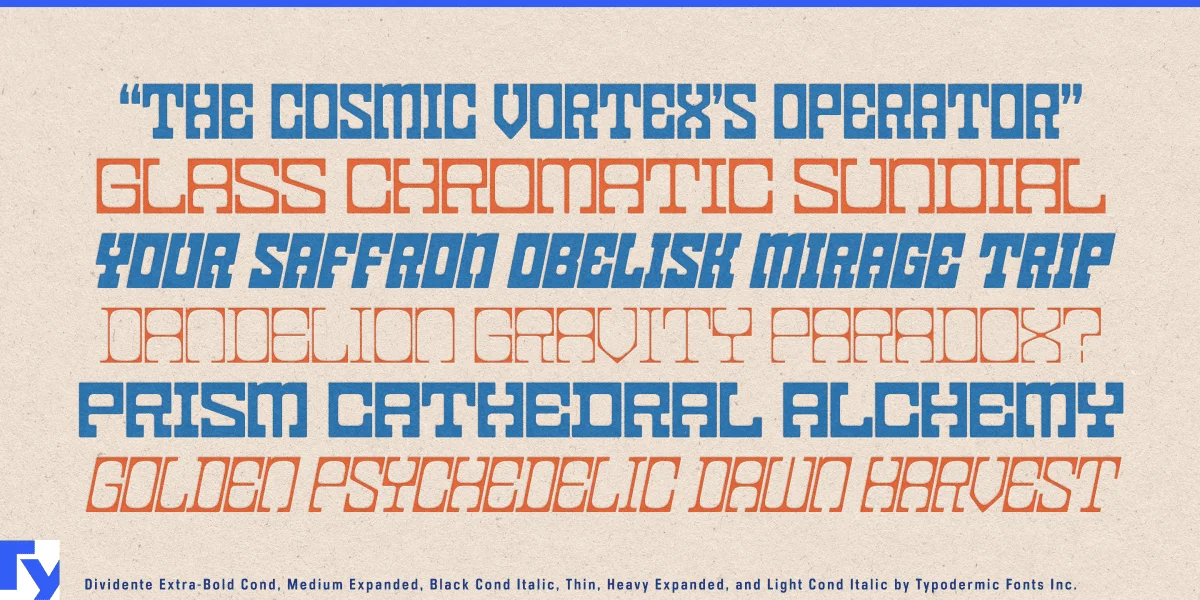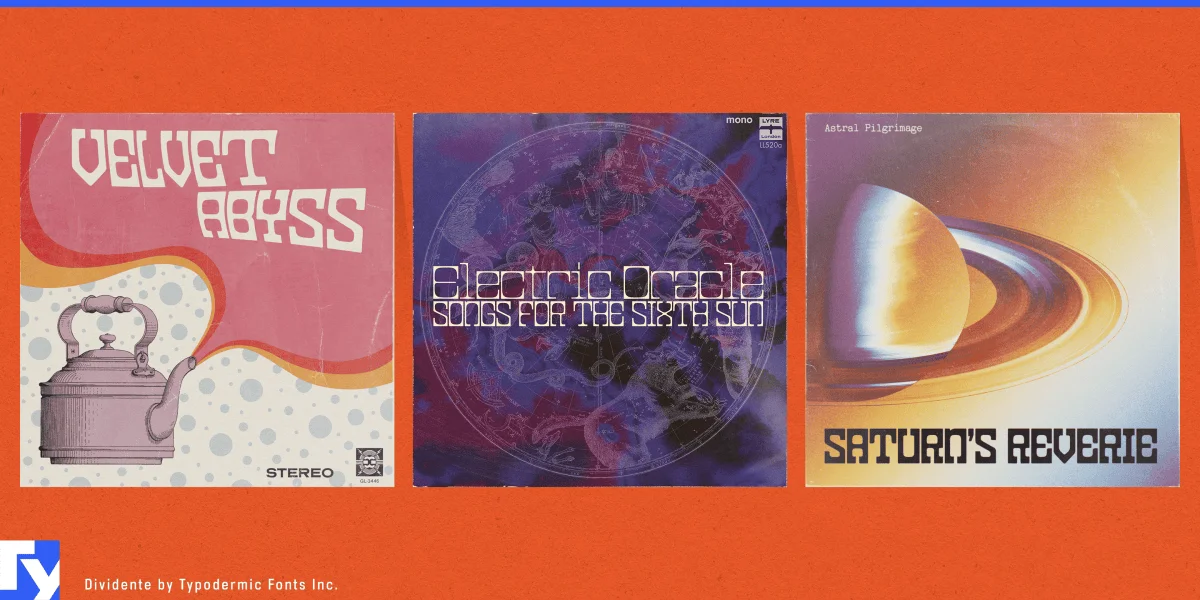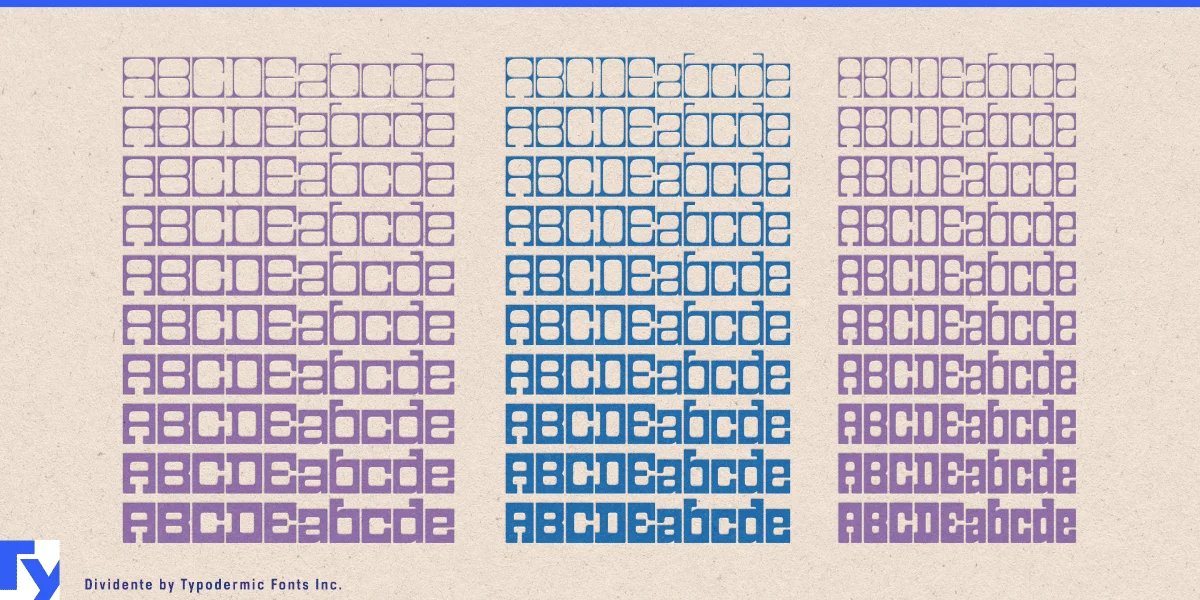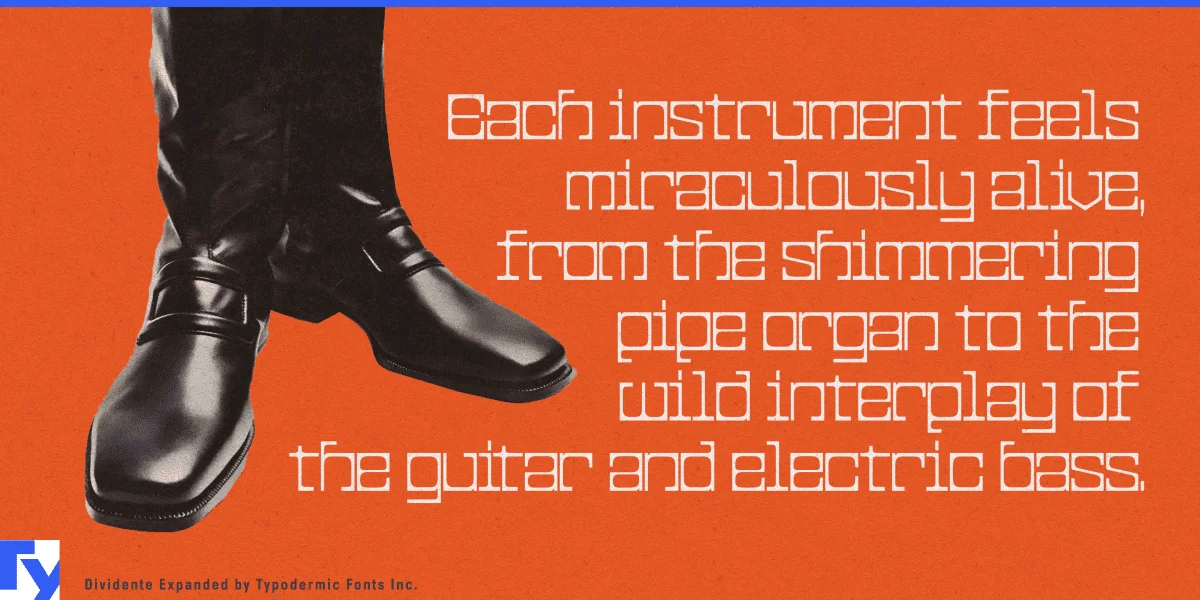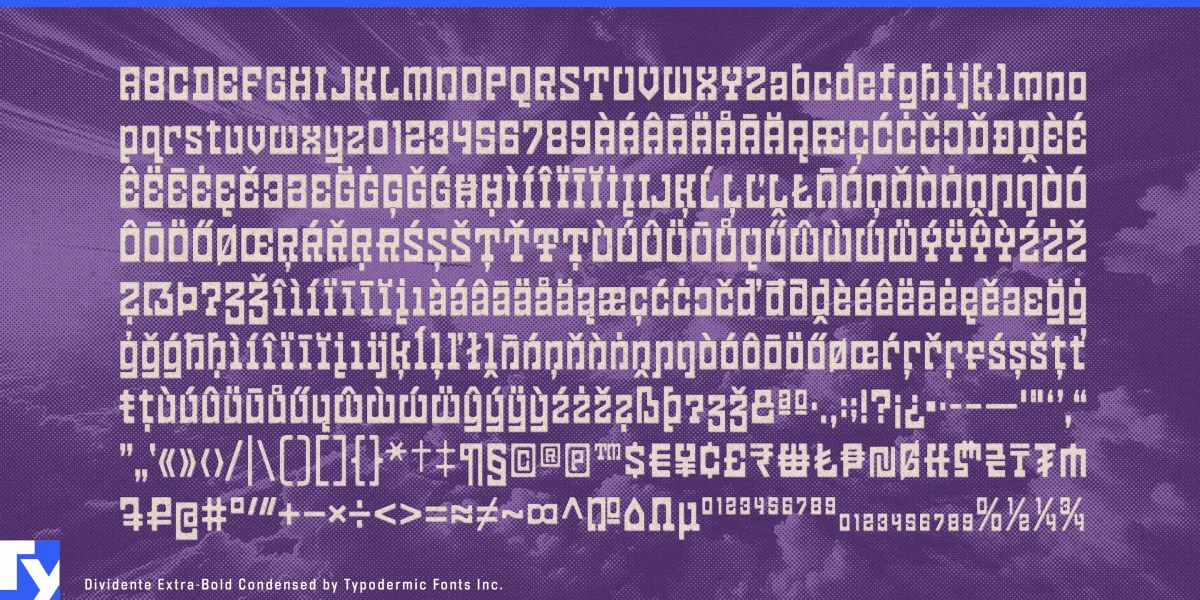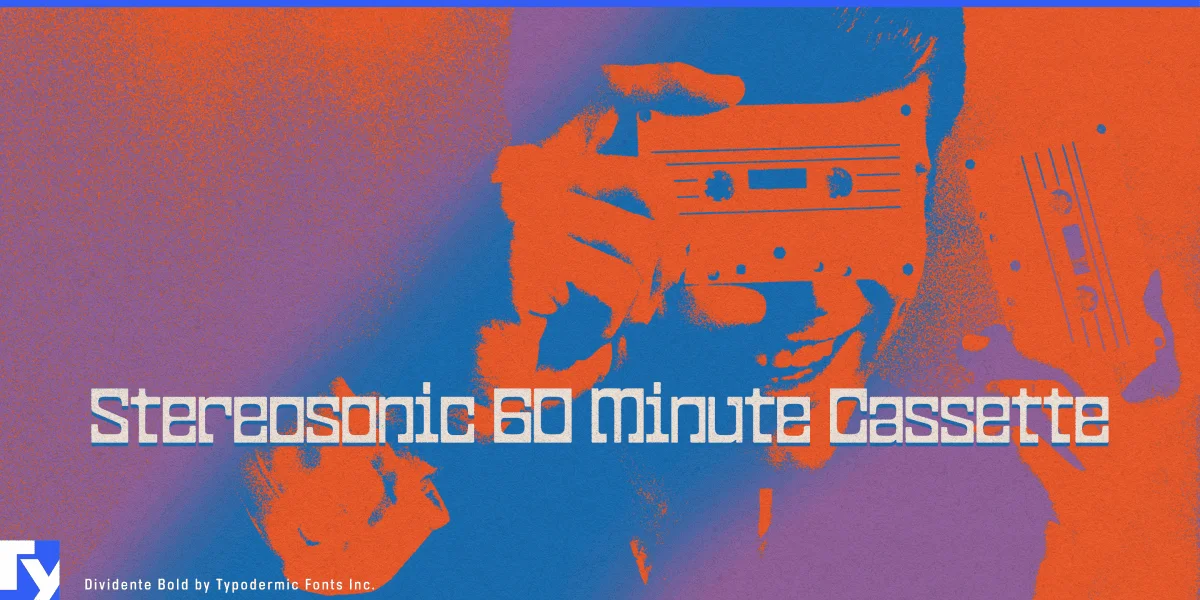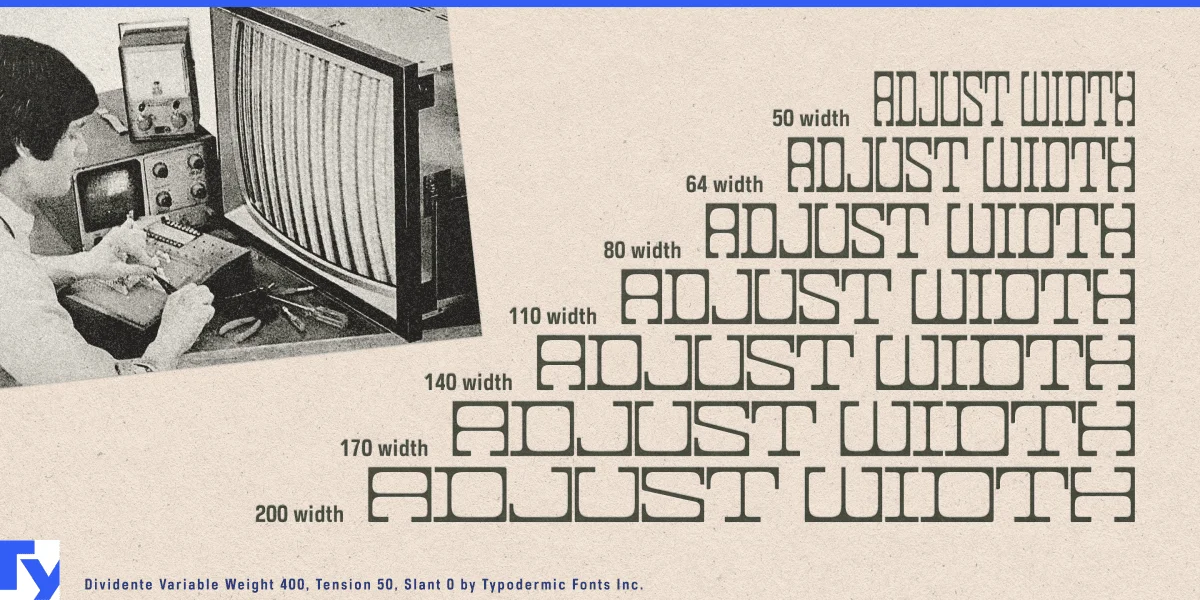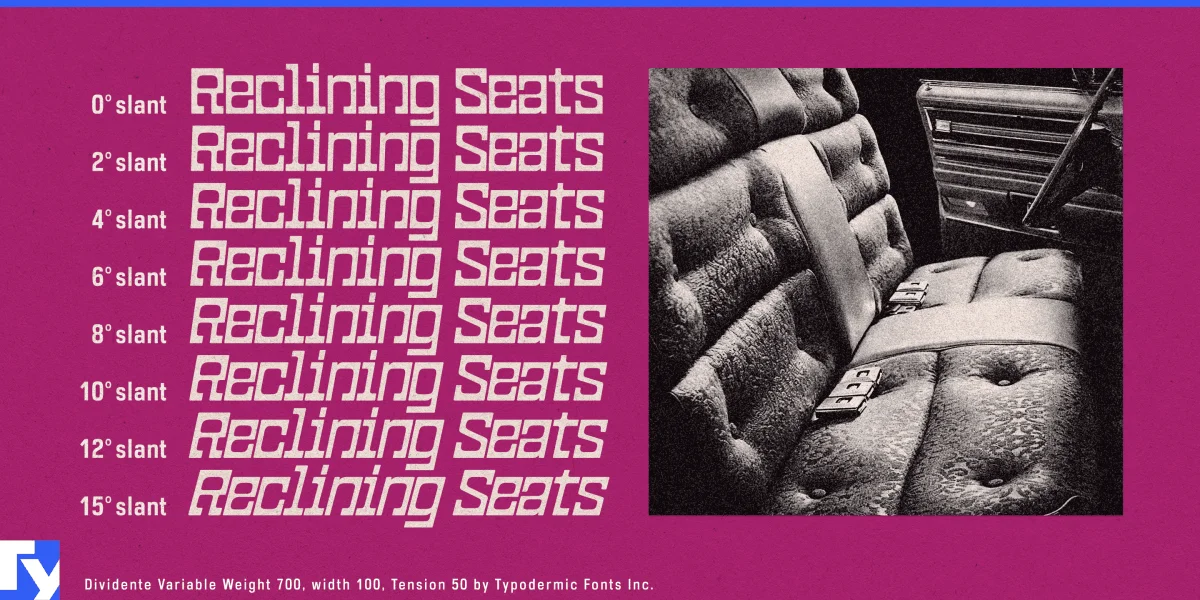
Dividente channels the bold display lettering of the late 1960s, when geometric forms and swinging-London optimism filled shop windows and magazine covers. Square-shouldered shapes meet soft superelliptical curves, creating a look that feels both mod and contemporary.
Its tightly spaced forms deliver instant impact, shifting easily from punchy headlines to stylish editorial layouts when tracked out. Warm, decorative, and unmistakably human, Dividente suits branding, packaging, posters, album art, and other projects that want a shot of retro energy with modern polish.